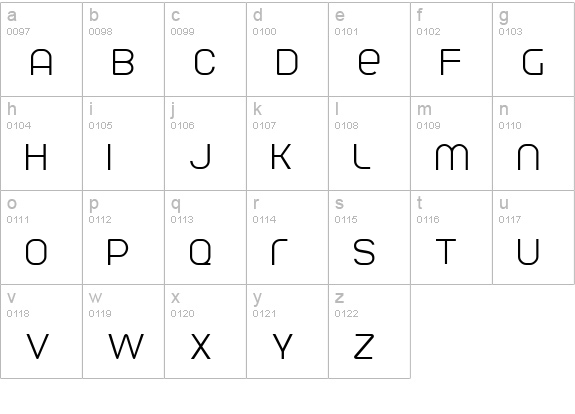
Parvoflavin Light Font Details
Parvoflavin Light is a refined, elegant variant in the Parvoflavin typeface family \xE2\x80\x94 well suited to elegant body text, refined sub-headings, and luxury branding.
Parvoflavin Light font is a delightful and elegant typeface that exudes a sense of modernity and sophistication. With its slender and delicate letterforms, this font is perfect for adding a touch of refined beauty to any project. The Parvoflavin Light font features a unique balance between rounded curves and sharp angles, resulting in a harmonious design that is both eye-catching and easy to read. Its slender strokes and generous spacing create a sense of elegance and professionalism, making it ideal for a wide range of applications such as branding, logos, headlines, and more. This font is freely available to download at FontsMarket.com, where designers and enthusiasts alike can access a vast library of high-quality fonts. Whether you're a professional graphic designer looking for the perfect typeface to elevate your designs or a hobbyist looking to experiment with different styles, Parvoflavin Light font is an excellent choice. With its stunning aesthetics and versatility, Parvoflavin Light font is sure to captivate and inspire. Its timeless appeal and clean lines make it suitable for both contemporary and traditional projects, ensuring its relevance for years to come. In conclusion, Parvoflavin Light font is a free, elegant, and versatile typeface that is sure to enhance any design. Download it today at FontsMarket.com and unlock the potential to create stunning and visually appealing projects.